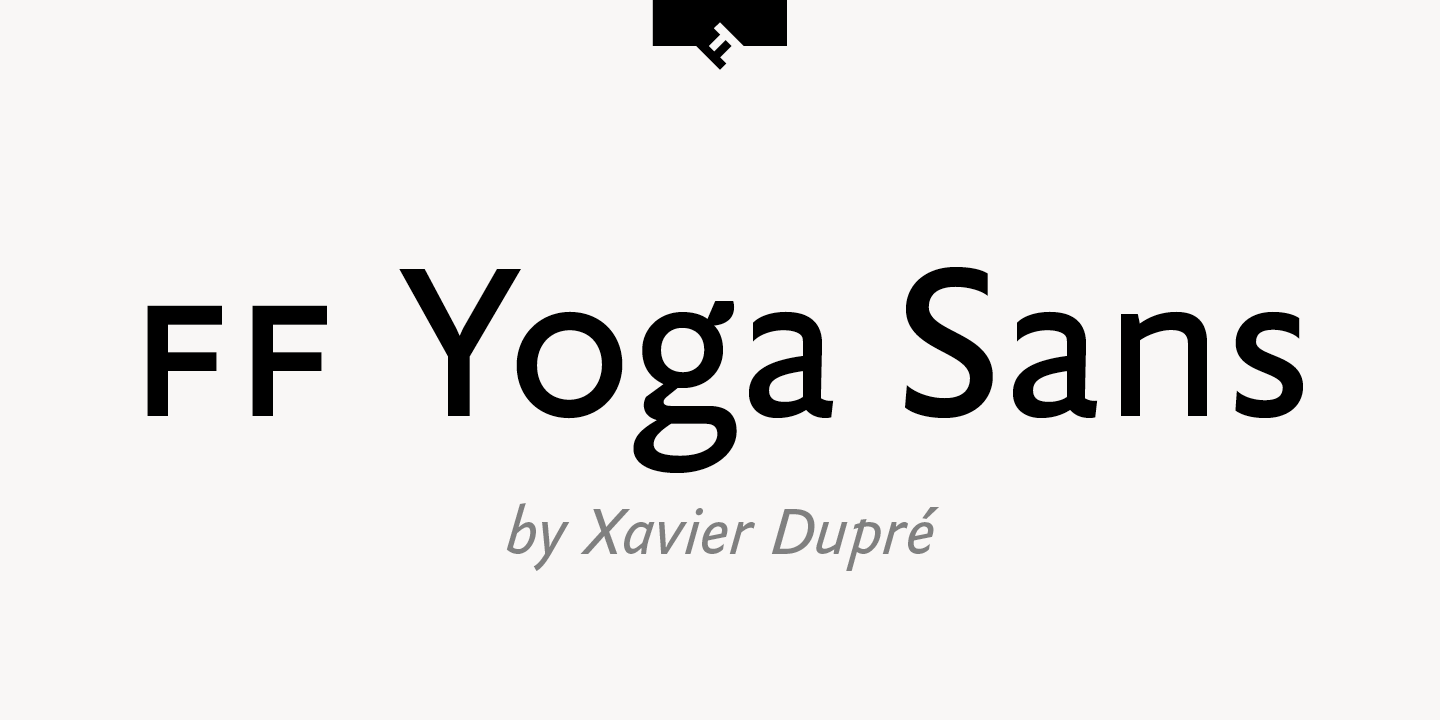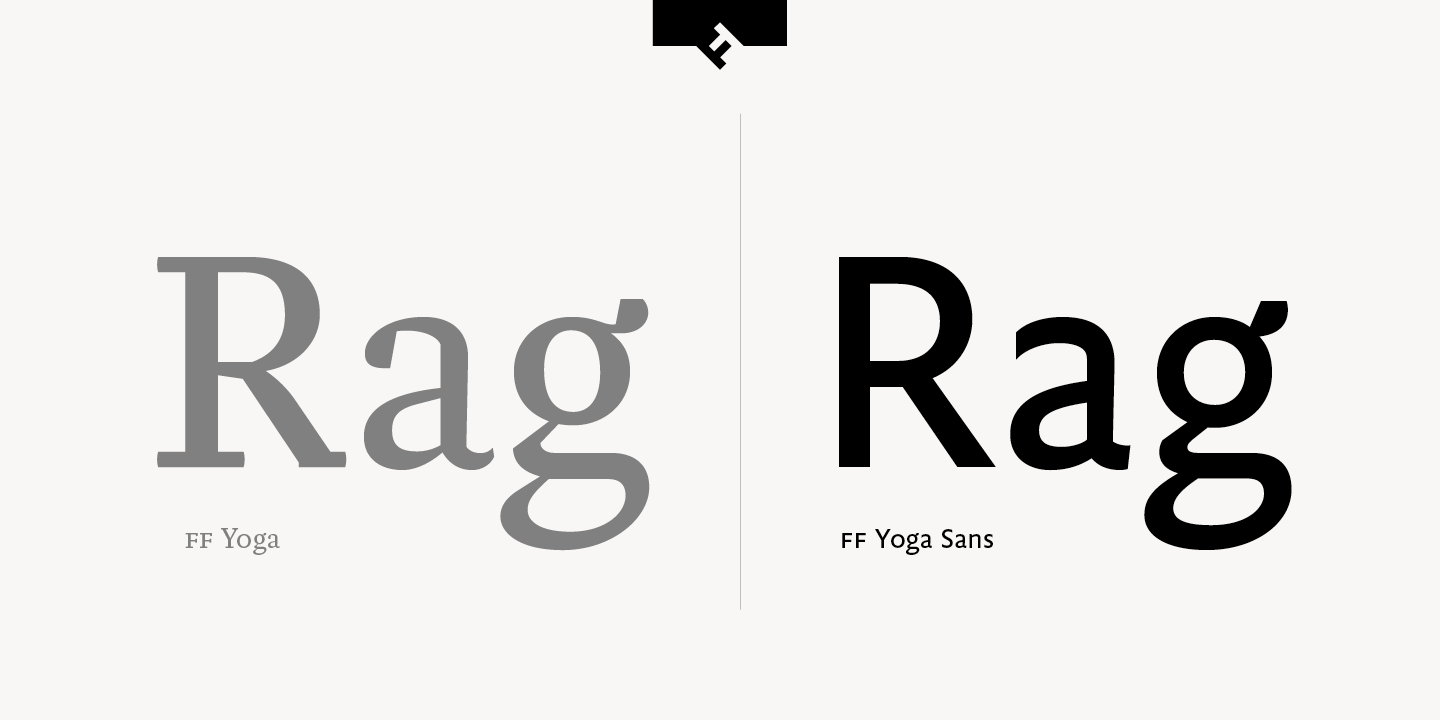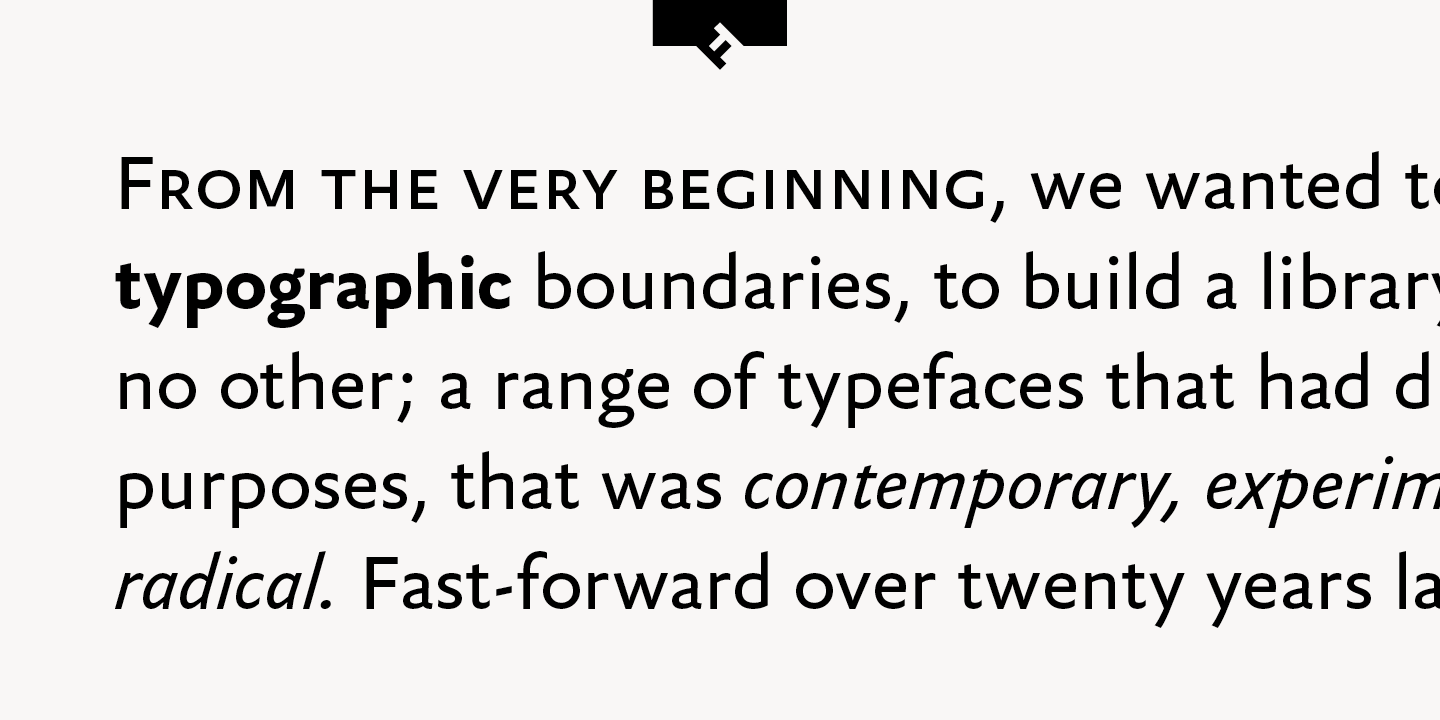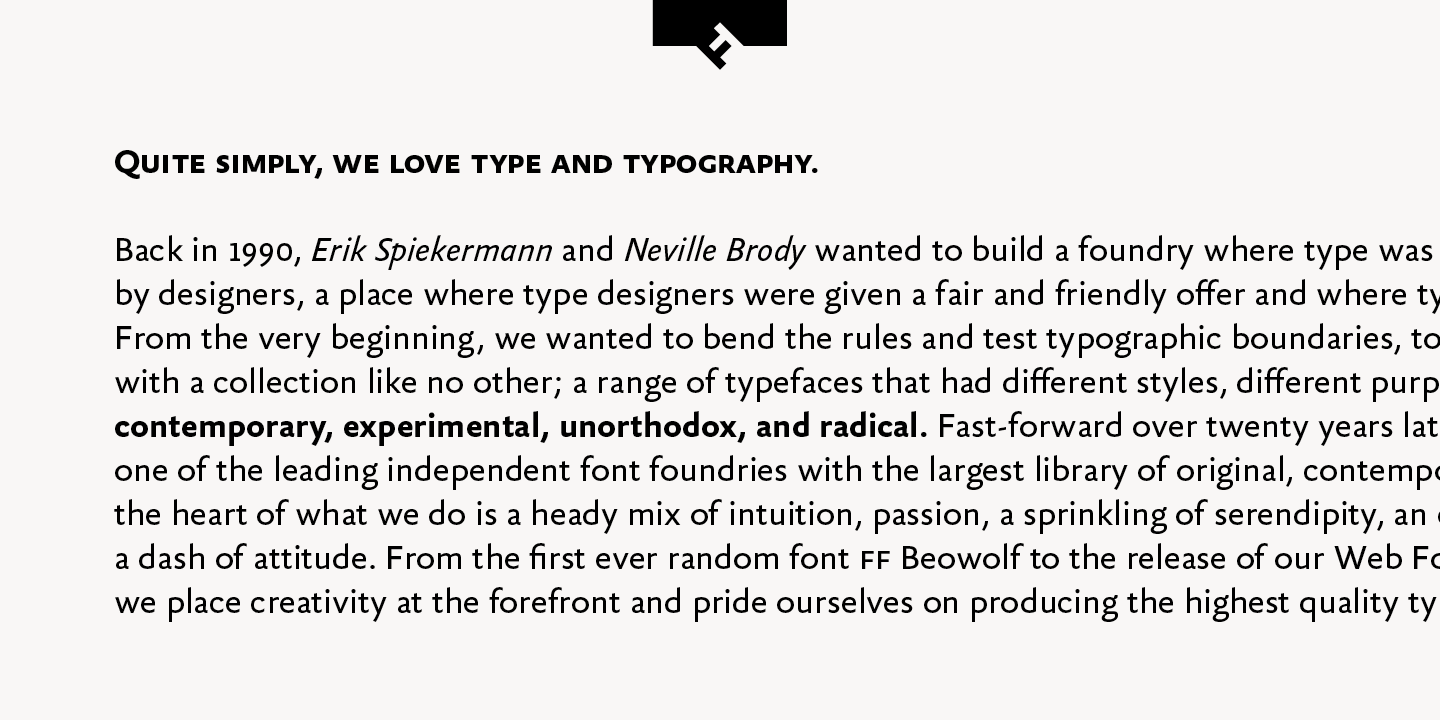
FF Yoga Sans Pro Bold
French type designer Xavier Dupré created this sans FontFont in 2009. The family contains 4 weights: Regular, Italic, Bold, and Bold Italic and is ideally suited for advertising and packaging, book text, editorial and publishing, logo, branding and creative industries as well as web and screen design. FF Yoga Sans provides advanced typographical support with features such as ligatures, small capitals, alternate characters, case-sensitive forms, fractions, and super- and subscript characters. It comes with a complete range of figure set options – oldstyle and lining figures, each in tabular and proportional widths. This FontFont is a member of the FF Yoga super family, which also includes FF Yoga.